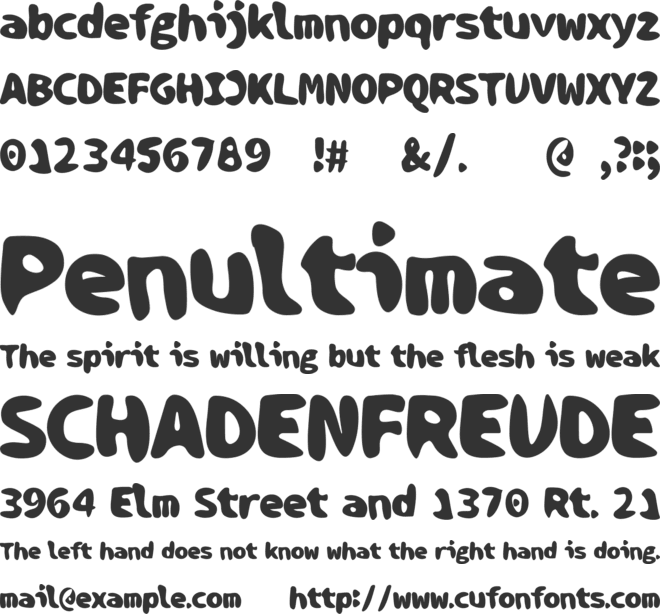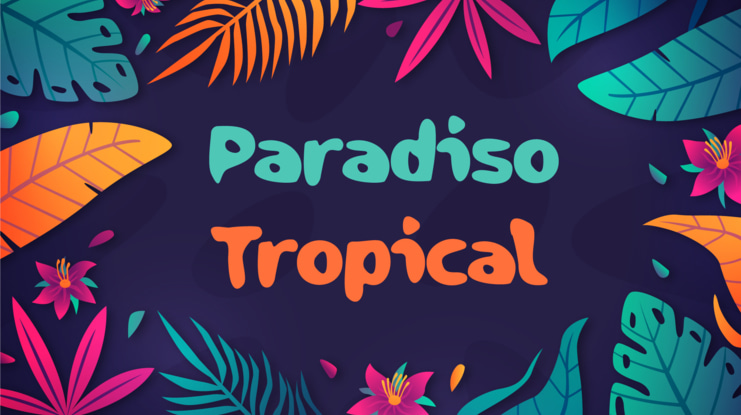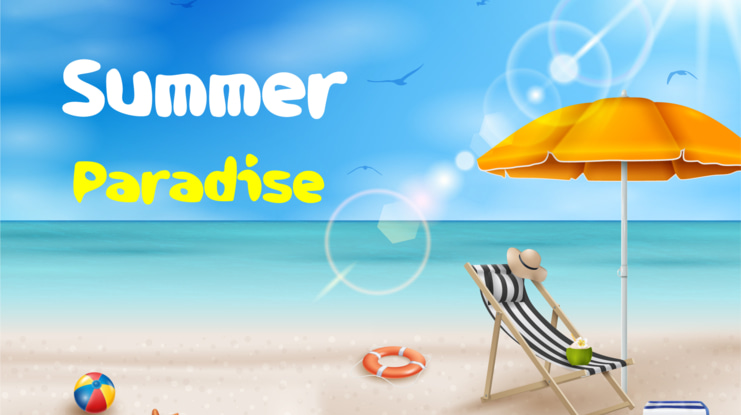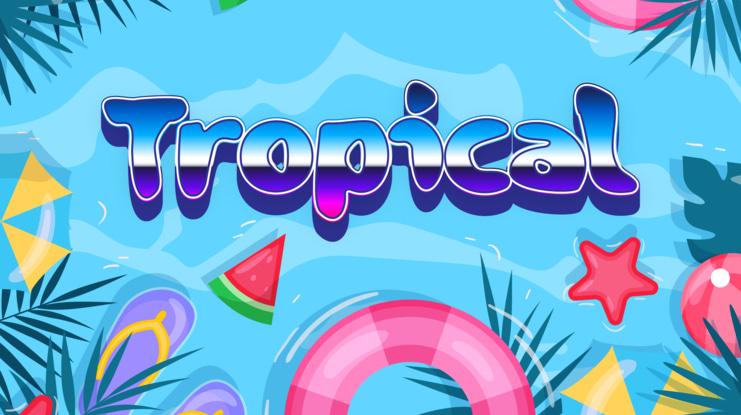
Paradiso Summer Font
Vladimir Carrer
This fun and unique summer font is perfect for adding a touch of paradise to your next project! Whether you're looking for a title font for your vacation scrapbook or a tropical-themed party invitation, Paradiso Tropical is sure to make a statement. This font includes upper and lowercase letters, numbers, and punctuation.